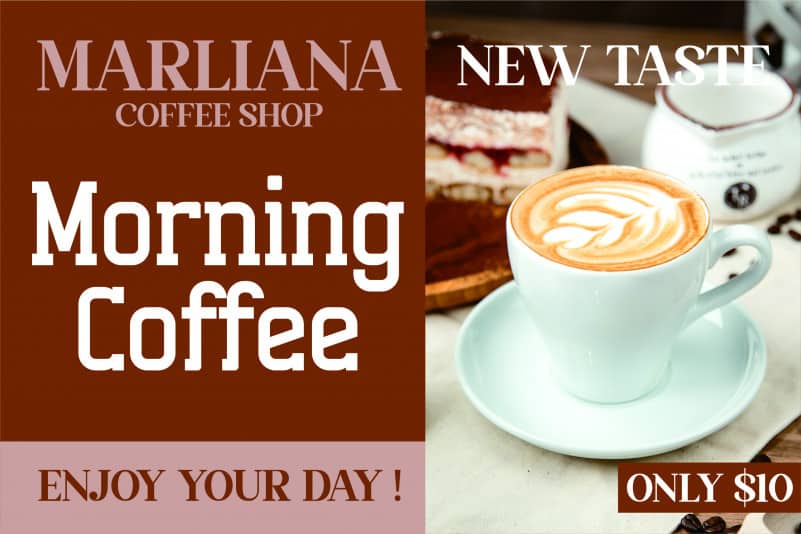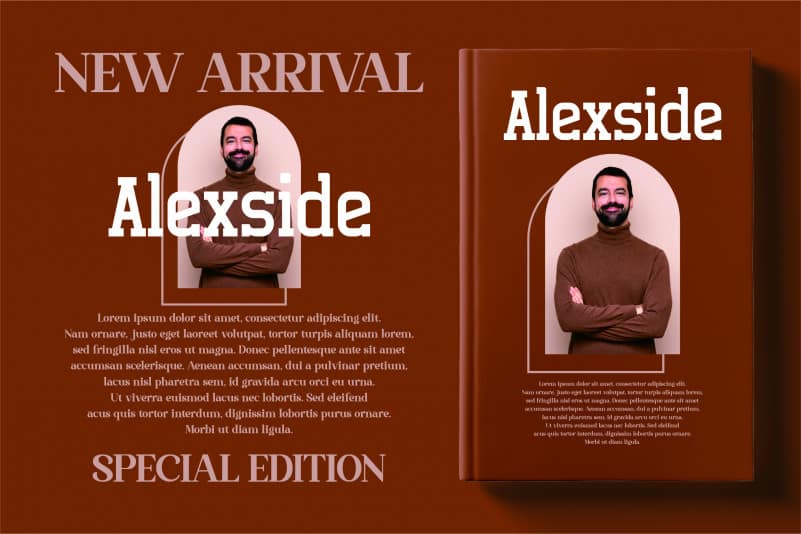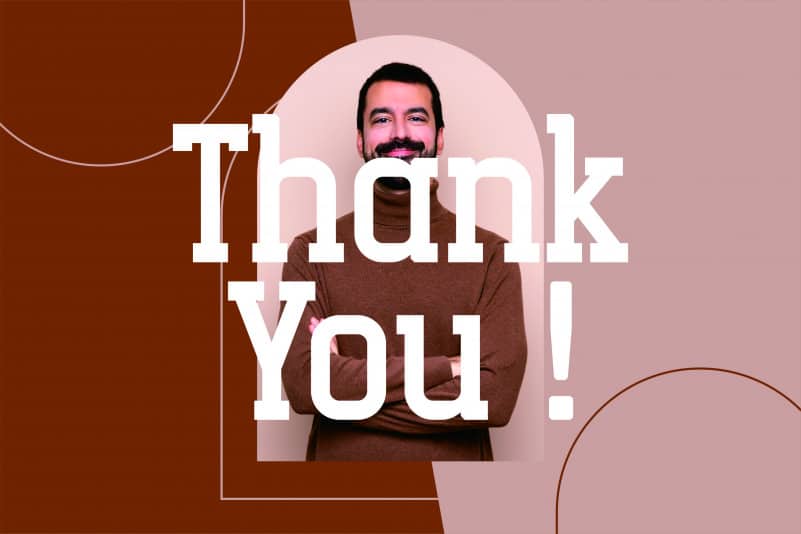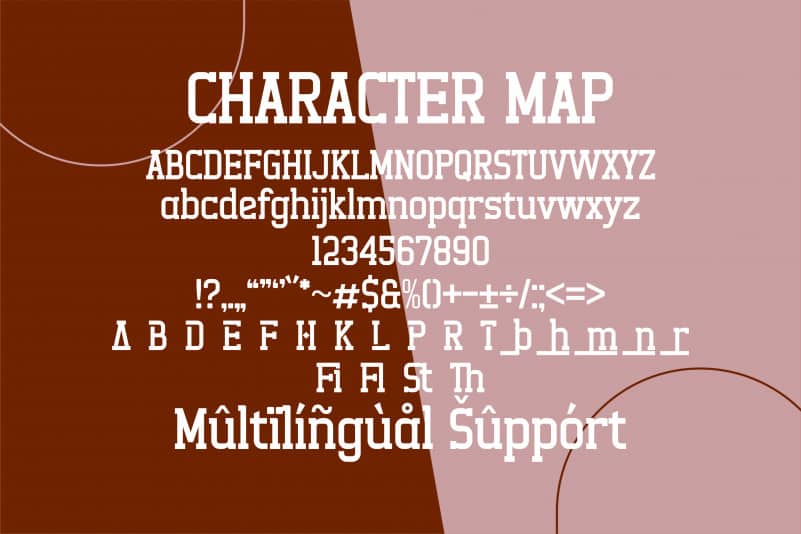
Alexside Slab Font
Alexside Slab Serif Font, from Letterena, is a premium slab font, suitable for any projects such as: logos, branding projects, homeware designs, product packaging, mugs, quotes, posters, shopping bags, t-shirts, book covers, name card, invitation cards, greeting cards, label, photography, watermark, special events, and all your other luxury and beautiful projects that need a premium slab taste.